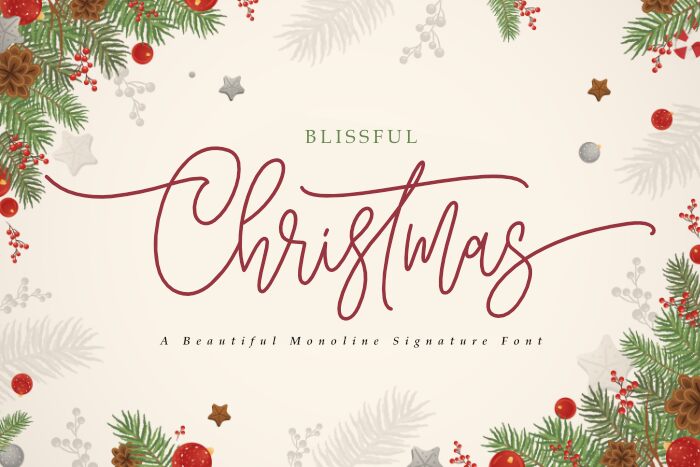
Welcome to Blissful Christmas, a monoline signature font created by Andri Ardianto & Madatype Studio. Its thin weight and condensed width make it the perfect choice for stylish signatures or elegant logos. It's also great for adding a special touch to holiday cards or invitations. Whatever your project is in need of, Blissful Christmas will add a subtle yet beautiful charm.
Blissful Christmas
Andri Ardianto & Madatype Studio